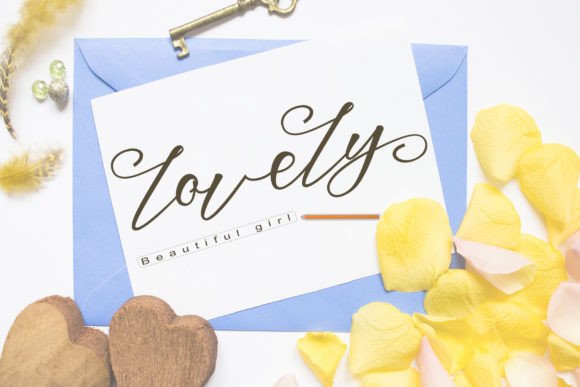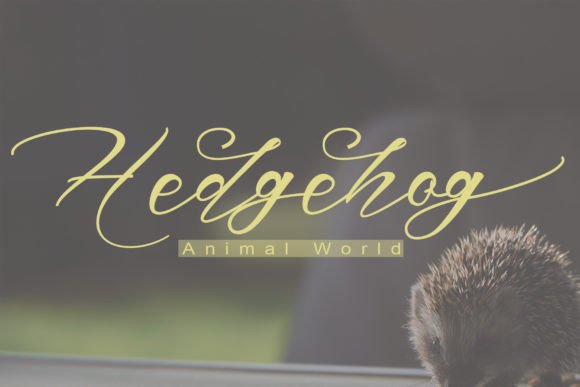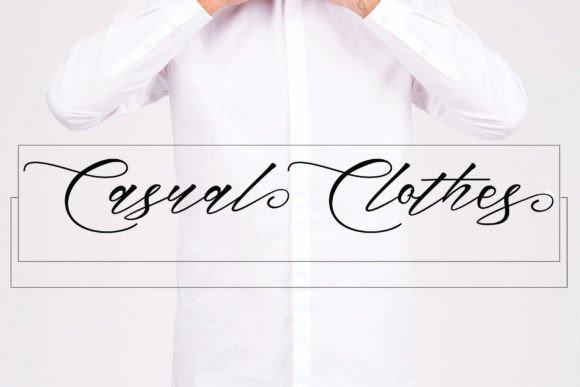
Introduction to Marsellino Font
Marsellino is an elegant calligraphy and natural script style.
Marsellino Modern Calligraphy is perfect for wedding designs, shared moments, branding projects, logos, social media posts, advertisements, product packaging, product design, labels, photography, watermarks, invitations, stationery, and any project that requires a handwritten feel .
Key Features of Marsellino Font